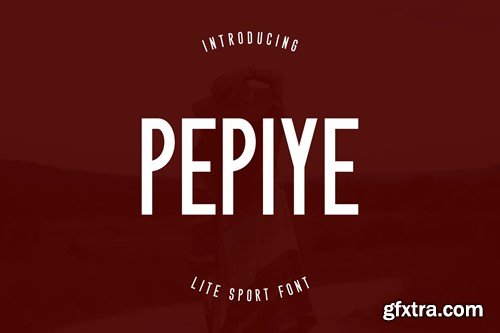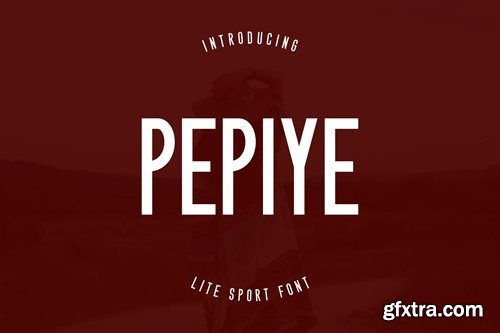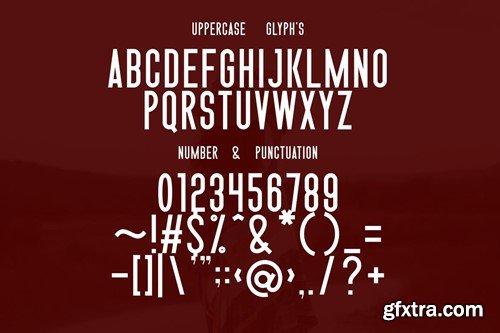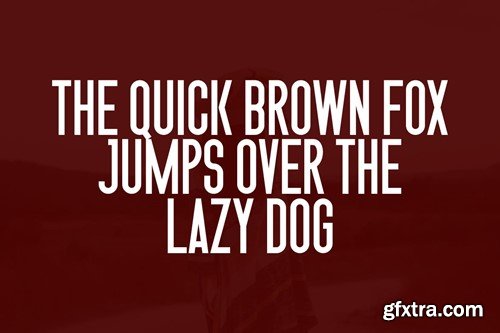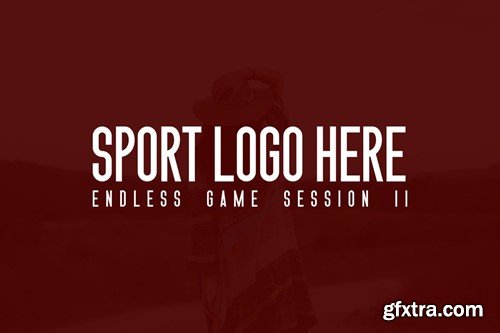
佩皮耶字体EUR96KE
PEPIYE Font
Surround yourself with the energetic atmosphere of the Sports Aura Font, a uniquely sleek and functional typeface meticulously crafted for sports-themed content. Each curve and line encapsulates the dynamic essence of sporting events, tastefully translating the heart of the game into typographic form. This secondary typeface pairs strikingly well with bold primary fonts, enhancing the visual impact of your athletics-centric materials. Make a statement that's both delicate and potent with Sports Aura Font – your aesthetic ally on the journey to captivate your audience. Thank you for embracing our creation. Available in .OFT & .TTF Formats.